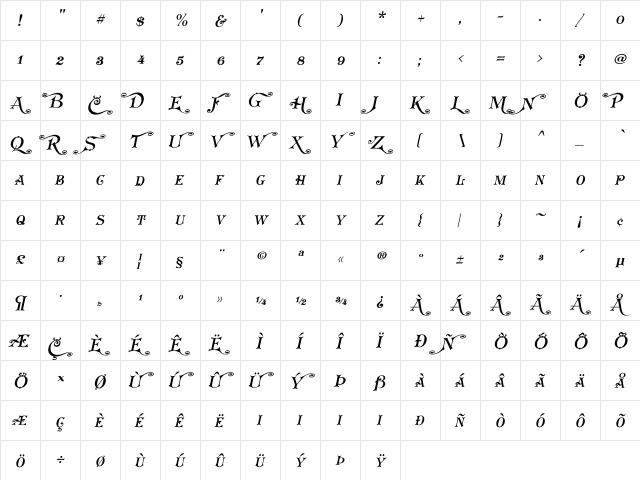
Koster Swash Caps Oblique Regular
Design Context for Koster Swash Caps Oblique Typeface
Koster Swash Caps Oblique flows with the natural rhythm of handwritten lettering, making it ideal for designs that call for warmth and personal expression.
Font Pairing: Combine Koster Swash Caps Oblique with a simple geometric sans for maximum contrast — the tension between flowing curves and clean structure is a classic typographic pairing.
Pro Tip: Use Koster Swash Caps Oblique for short runs of text — names, titles, or taglines. Extended body copy in script faces tires the eye quickly.